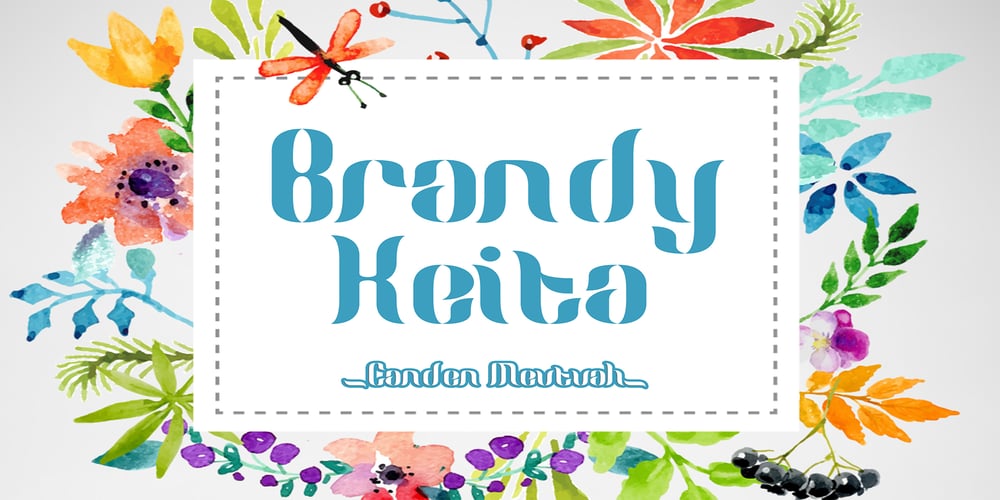
Brandy Keita Font Family was designed by Canden Meutuah and published by Canden Meutuah. Brandy Keita contains 1 styles and family package options. Serif is a modern serif font packaged in a modern and classy style, complete with access to your OpenType feature to access a large selection of alternative letters and ligatures, the choice of letters you like from various uppercase and lowercase letters for a luxurious impression and elegant appearance.A new elegant serif font that will add a touch of luxury and style to your projects. This is a very versatile font that works well in both large and small sizes.This font is Perfect for branding projects, logo design, clothing branding, packaging, magazine titles, advertisements, t-shirts, postcards, editorials, magazine headlines, product packaging, and displaying masculine and feminine qualities.this is equipped with full uppercase, lowercase, numbers and punctuation + Multi-language support